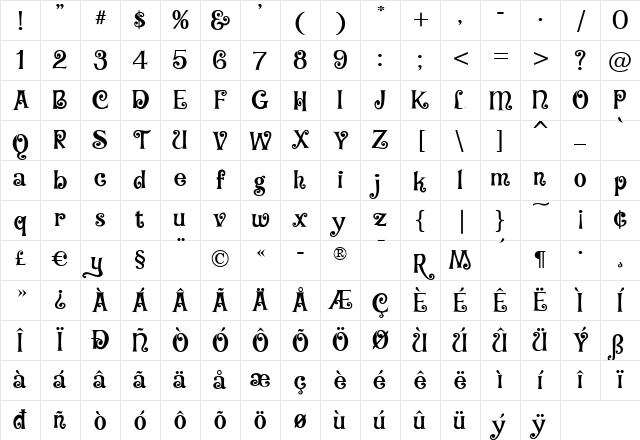
BaileywickCurlyJF Medium
Foundry: (C) Jason Walcott/JAW Fonts
Design Context for BaileywickCurlyJF
BaileywickCurlyJF is a composed and adaptable typeface that performs quietly and consistently across a wide range of design contexts.
Who designed the BaileywickCurlyJF Medium font?